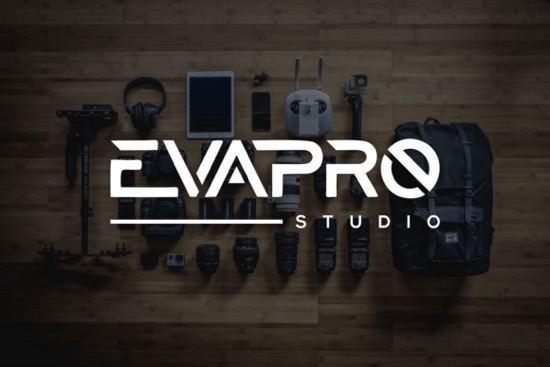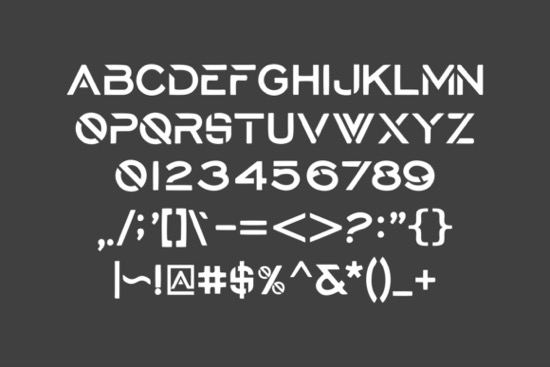
Introducing Moprid, a futuristic and sophisticated sans serif font designed for those who appreciate refined aesthetics in typography. Its smooth lines and simple shapes make it perfect for both titles and body text, giving a fresh and stylish look to any design.
Moprid Display Sans Font
Moprid Font